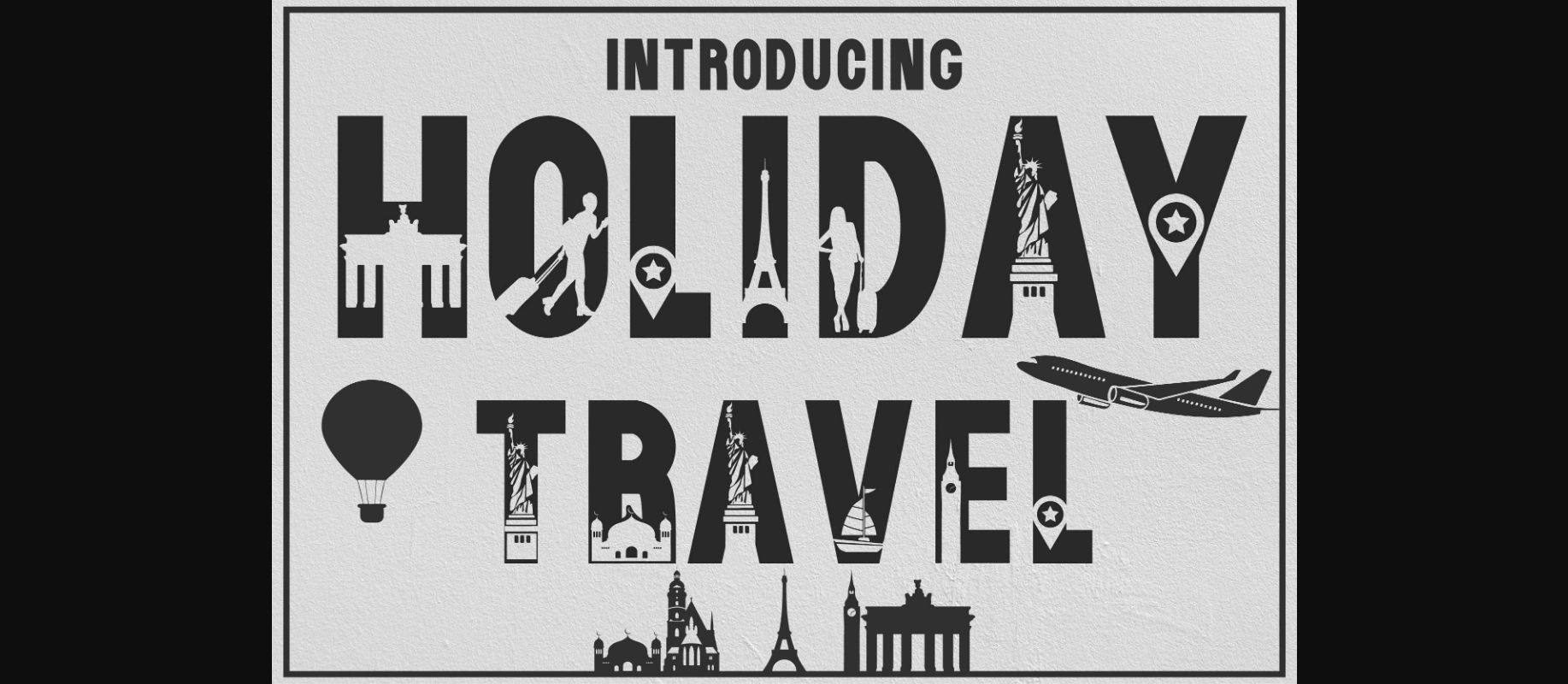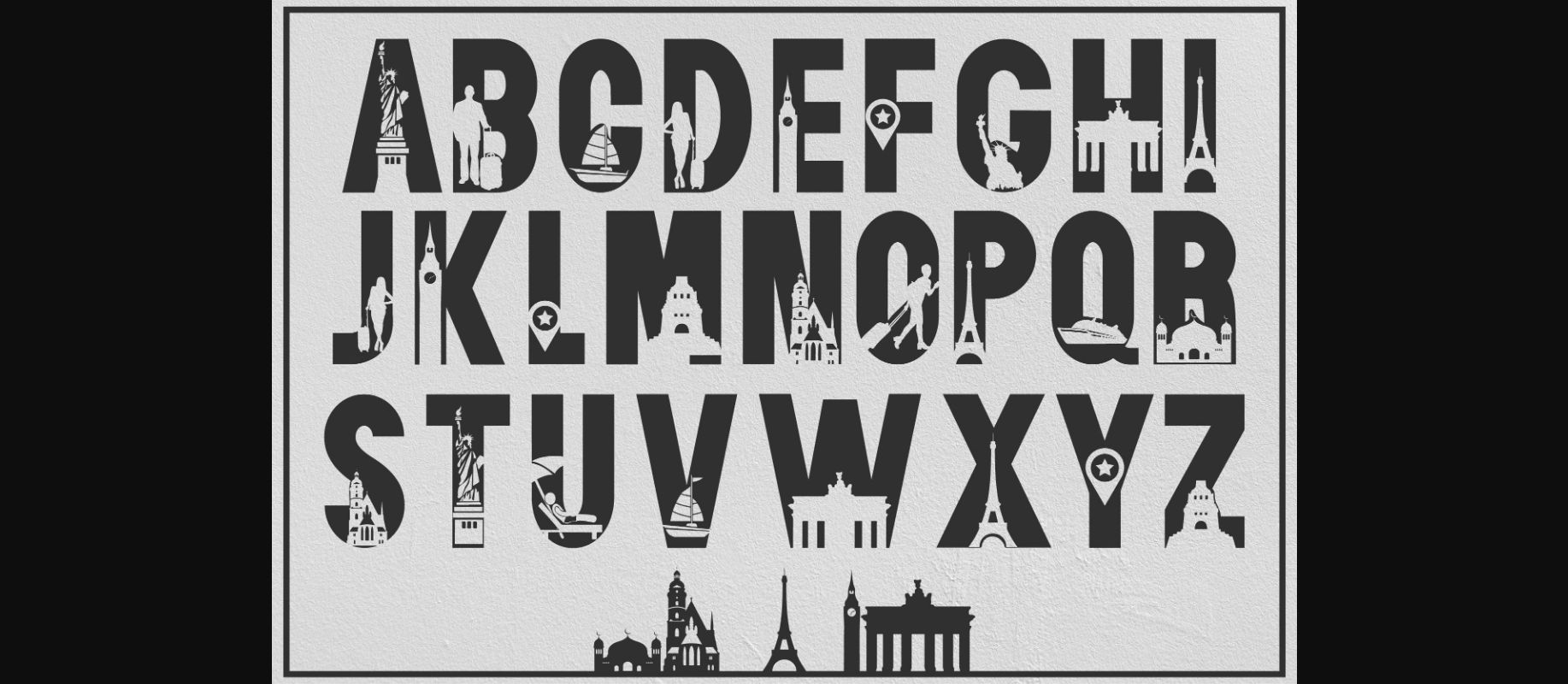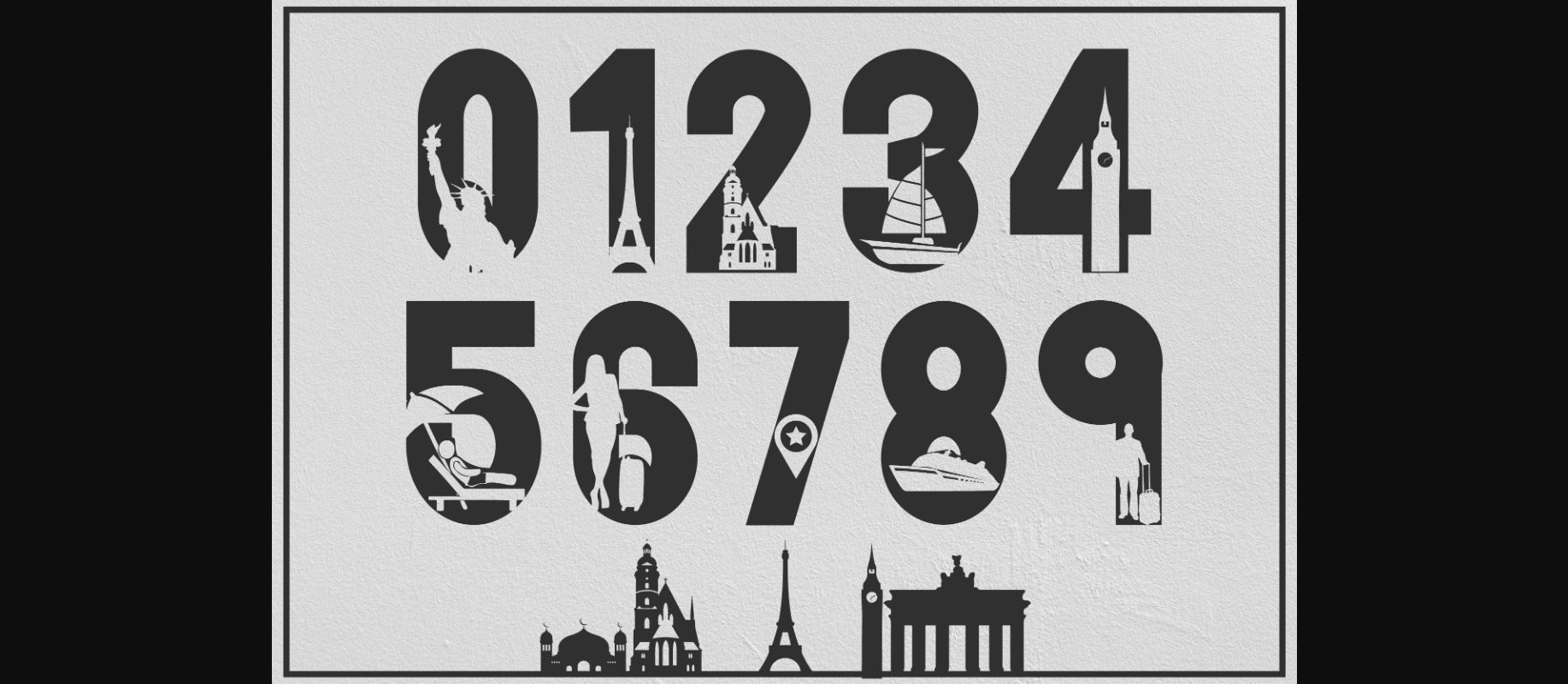
Holiday Travel is a fun, original, and cool decorative font. It is perfect for various design ideas related to travel. This font is PUA encoded which means you can access all of the glyphs and swashes with ease.